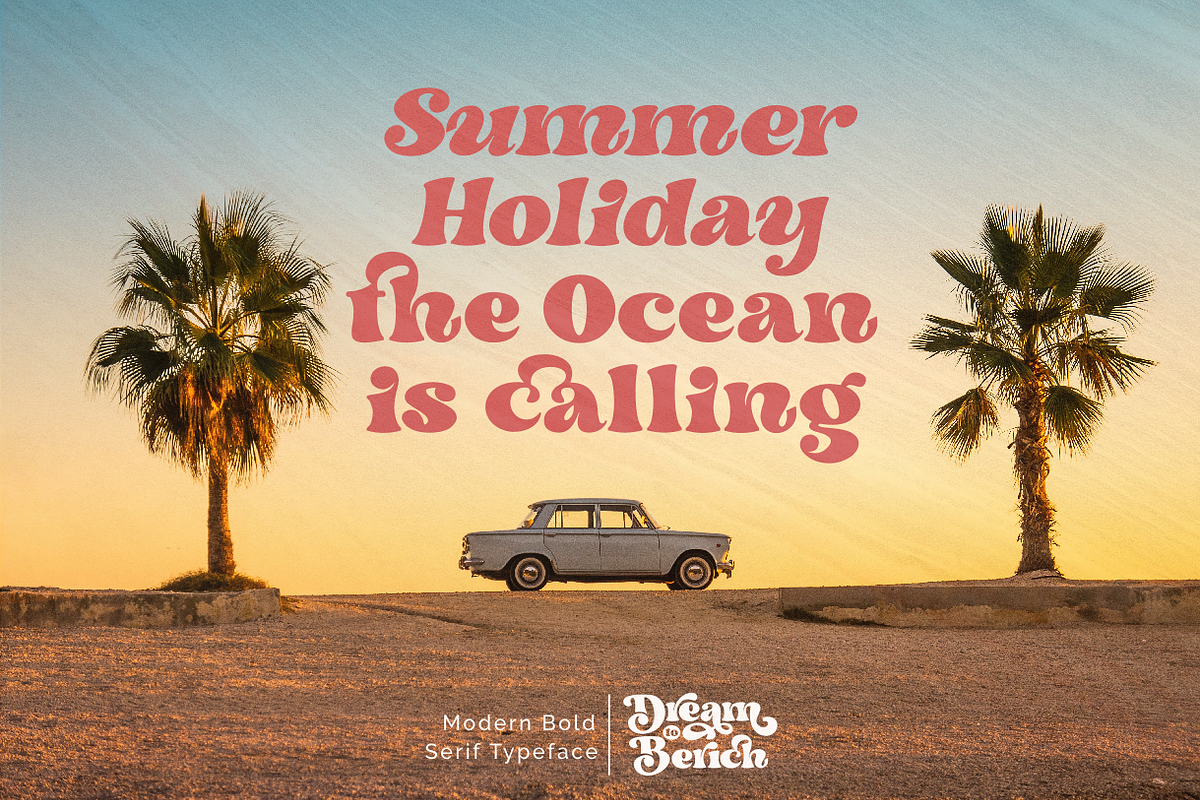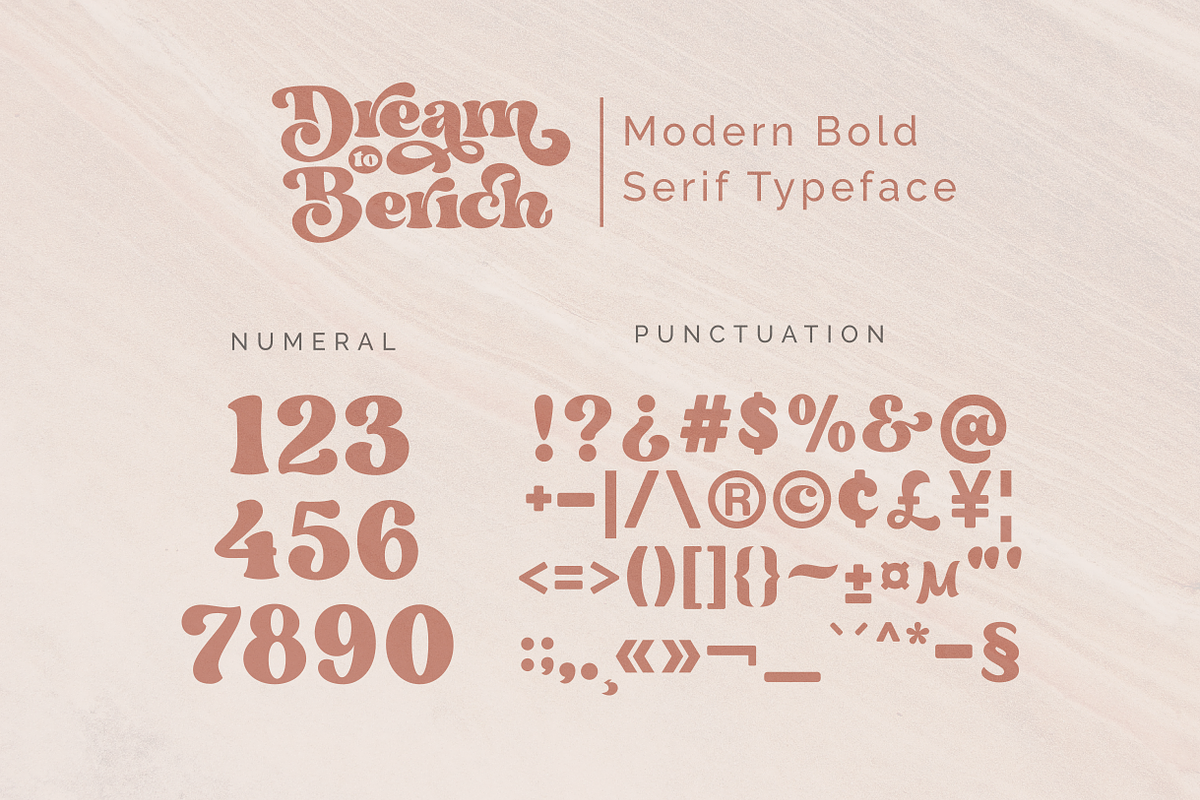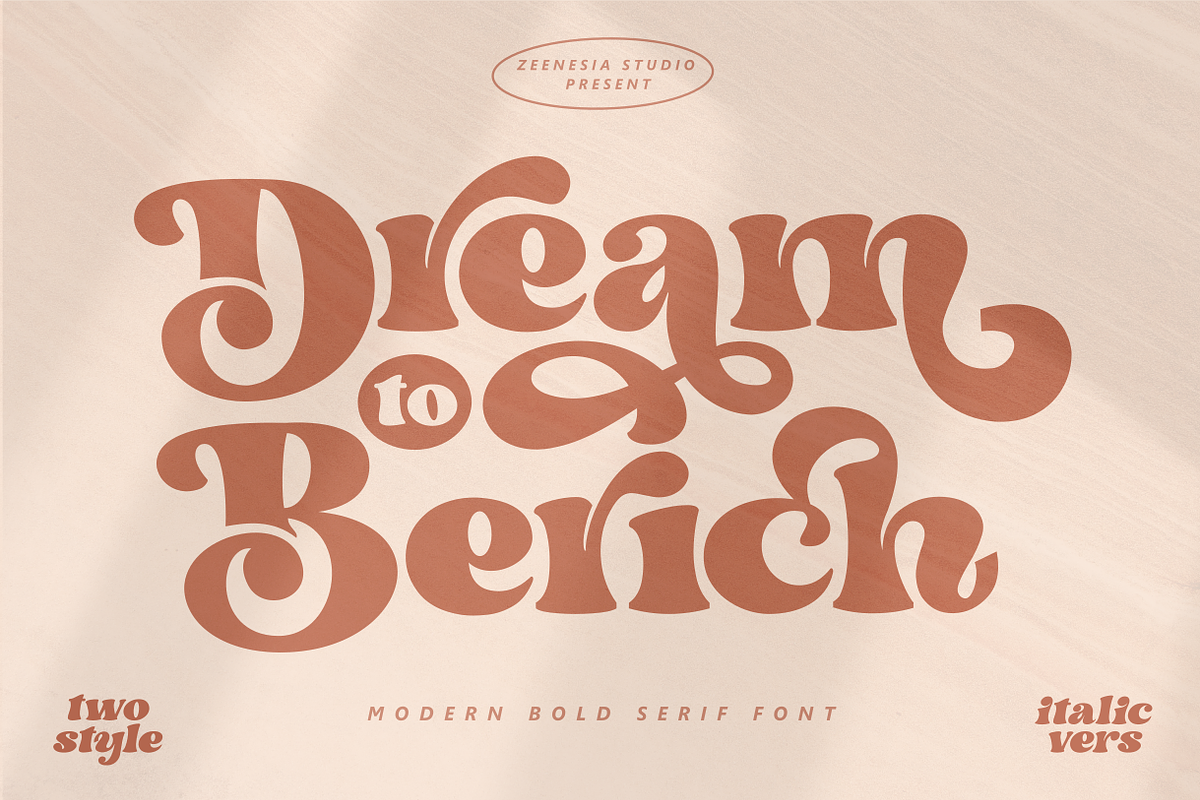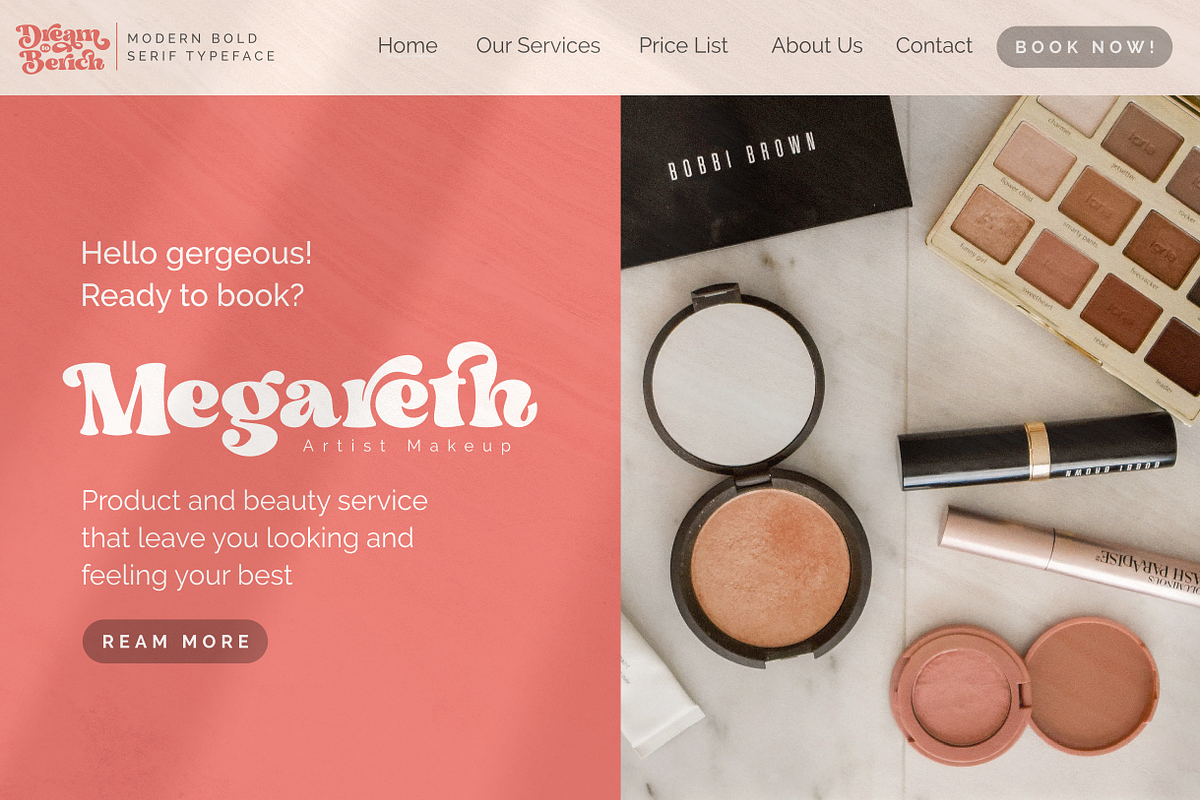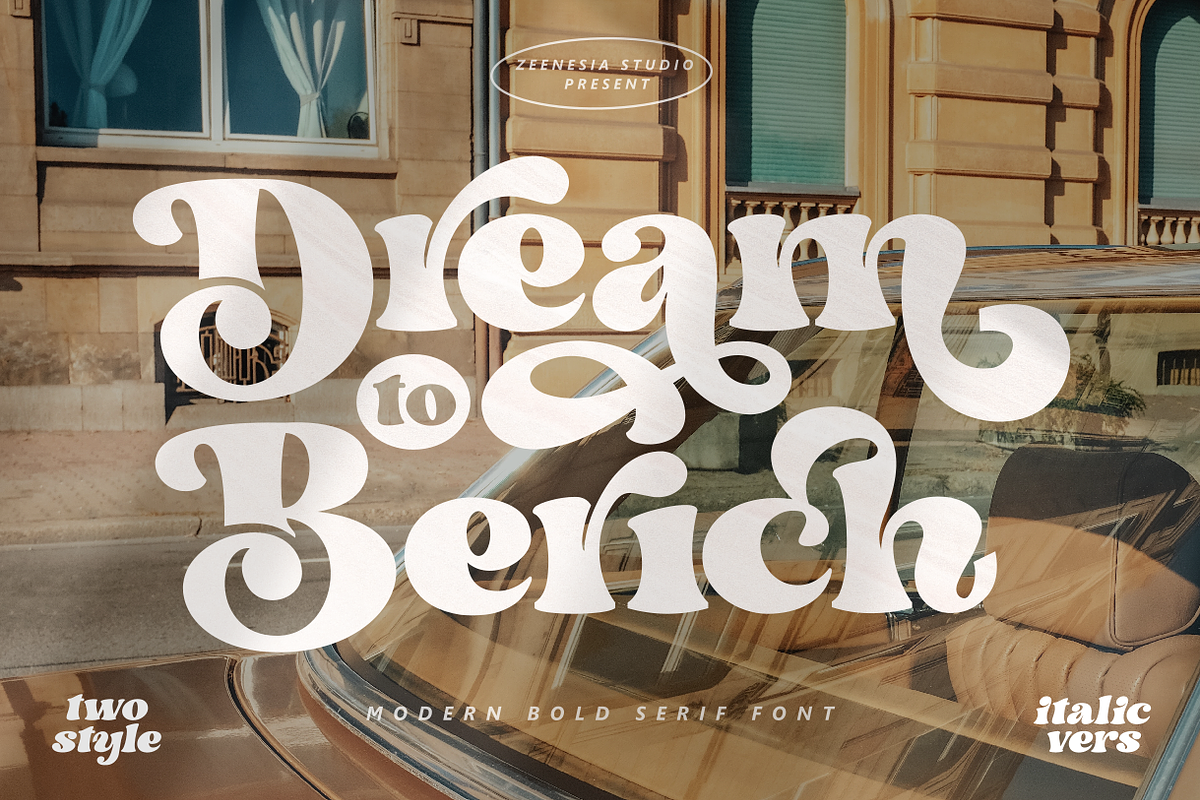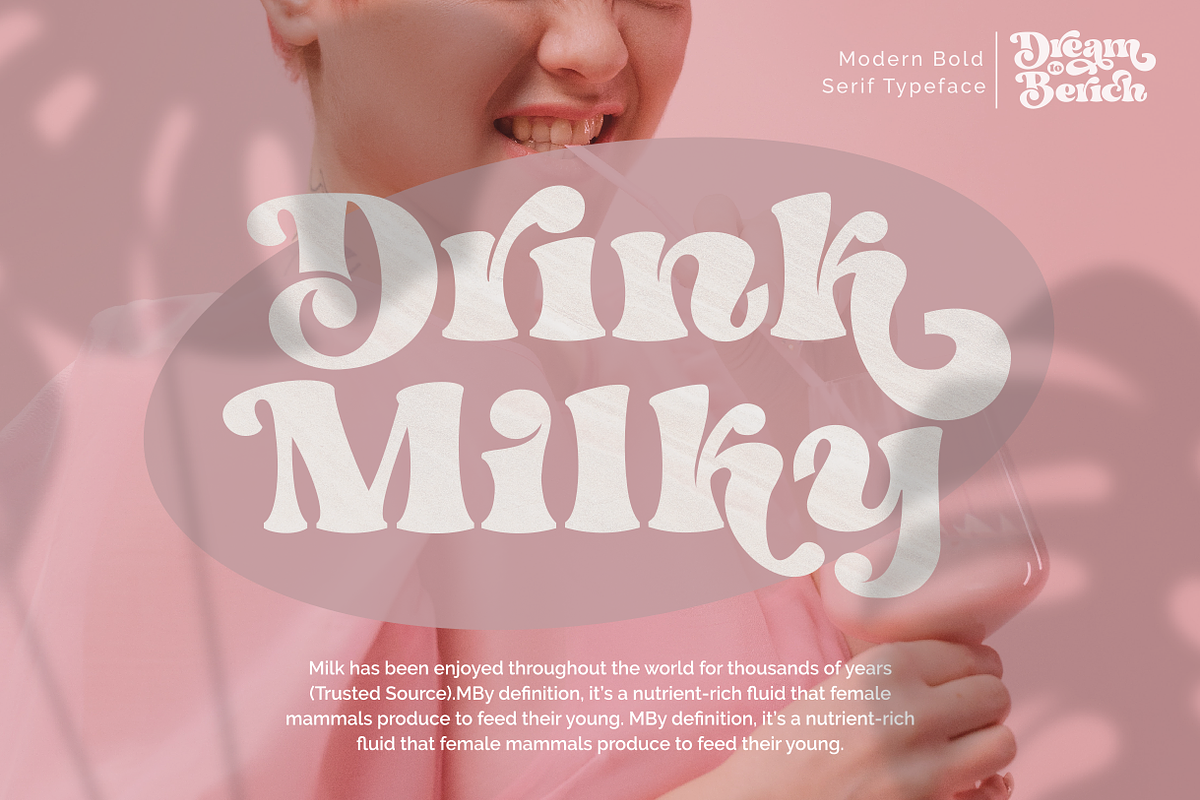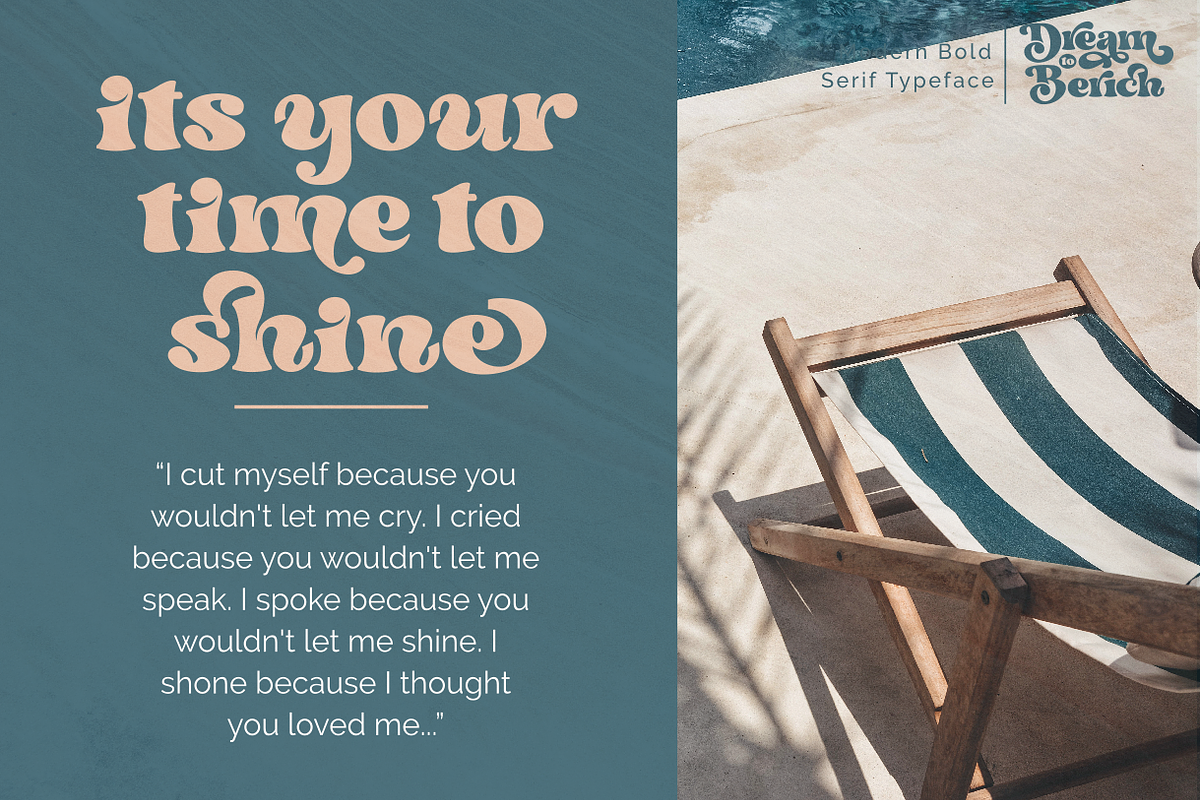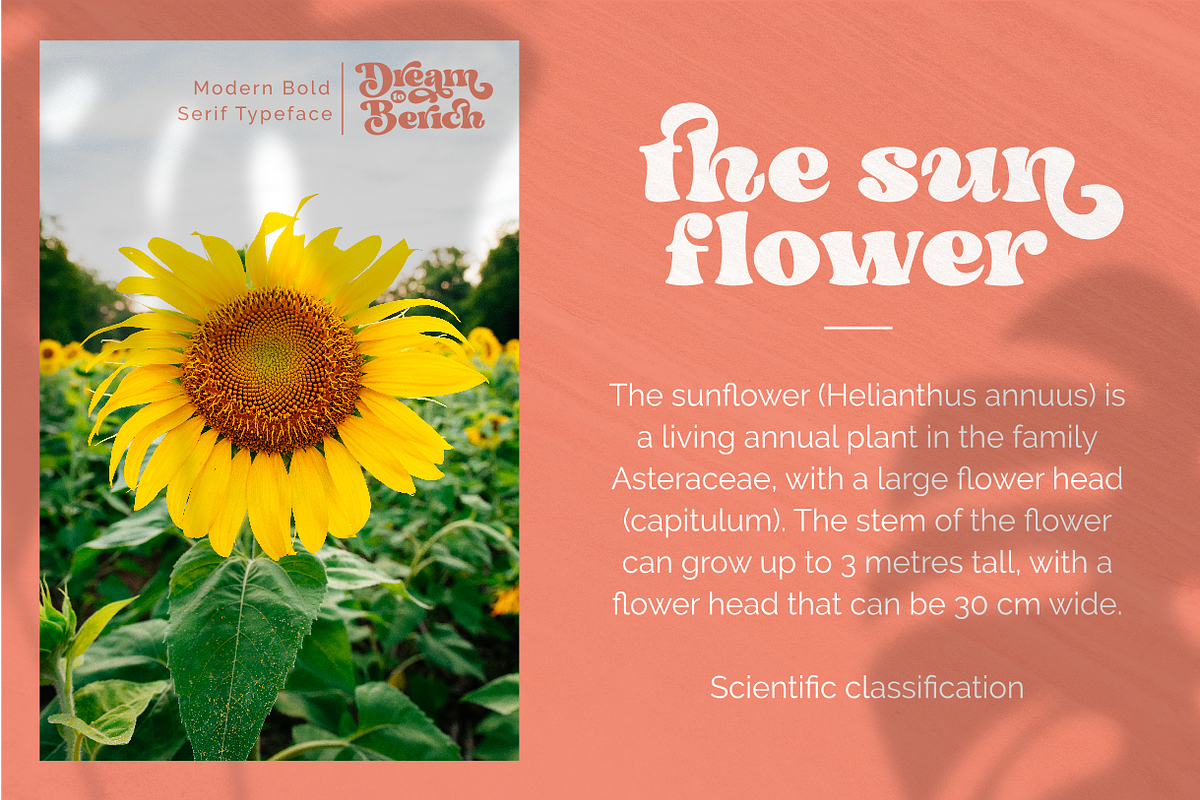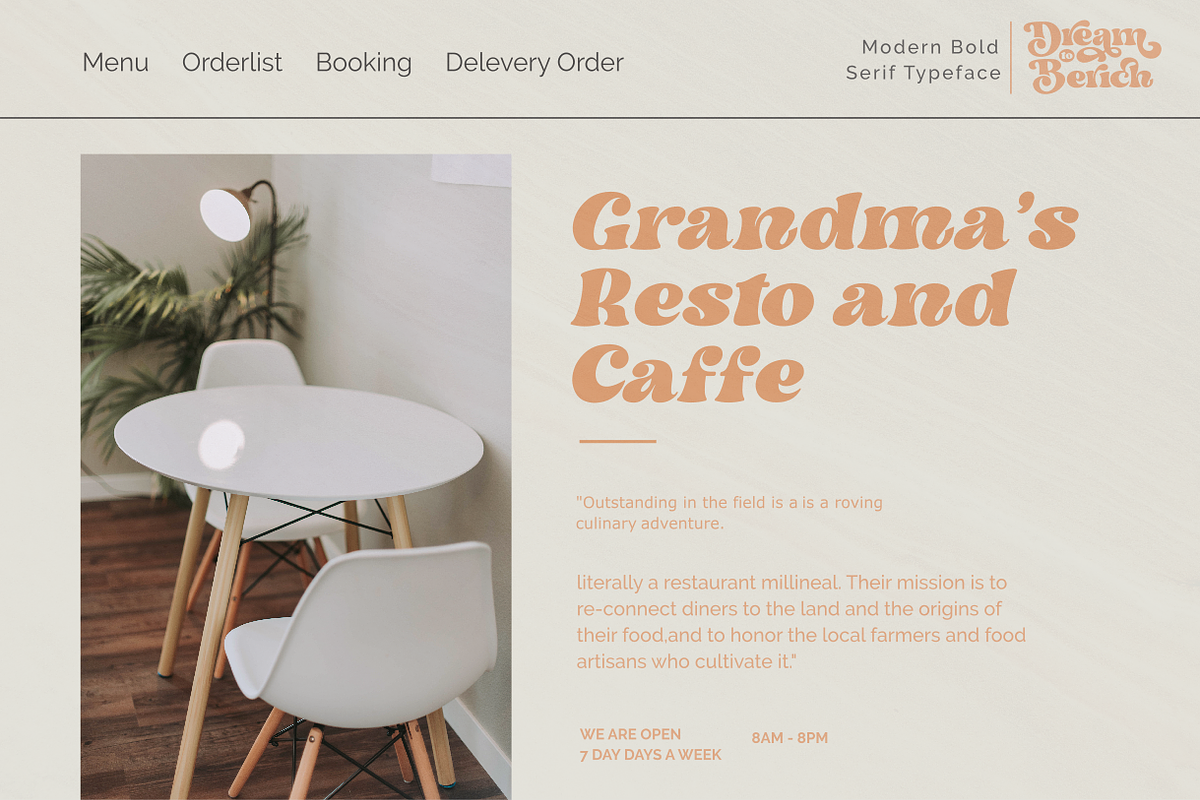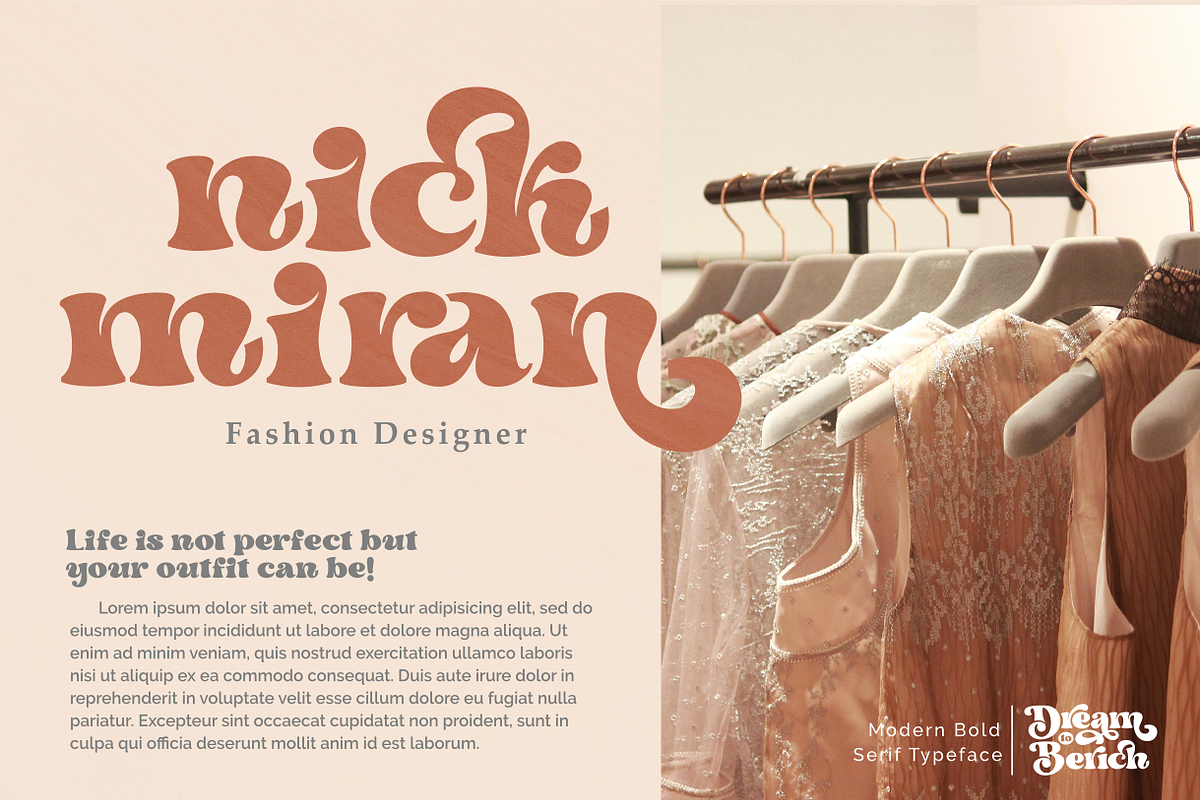
Dream to Berich Modern Bold Serif
Dream To Berich is a Bold vintage style serif font with strong character and soft features. modern and classic serif font with a clear and bold look. It’s a very versatile font that works great in large.
Its comes with two style regular and italic / slant, Dream To Berich was built with openType features, stylistic Alternate and Ligature makes your project will be awesome!!
Perfect for editorial projects, Logo design, web font, clothing branding, product packaging, magazine headers, or simply as a stylish text overlay to any background image.